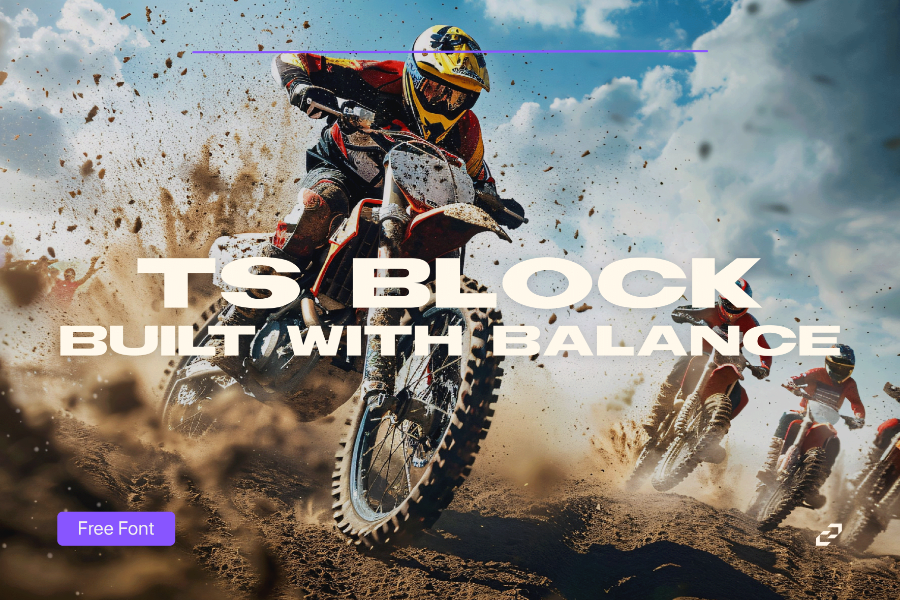
TS Block - Structured Sans-Serif Font for Balanced Headlines & Web Use
A bold, easy-to-read sans-serif with balanced forms—great for clean headlines and modern web layouts.
Style: Geometric Sans Serif (Block)
Weights/Styles: Regular (Single Weight)
Best For: Logos, signage, packaging, impactful digital graphics.
Key Features:
- Strong geometric shapes
- Excellent readability in bold settings